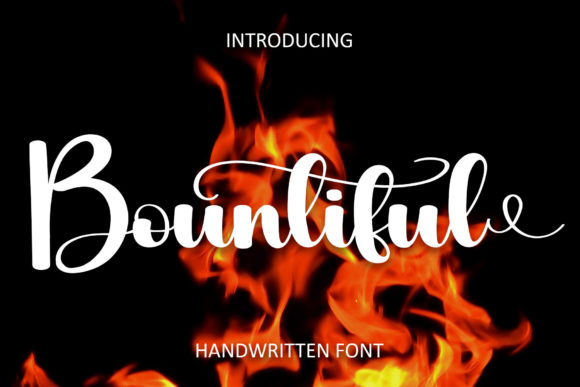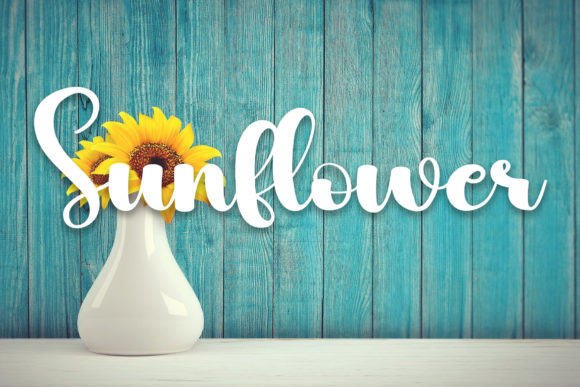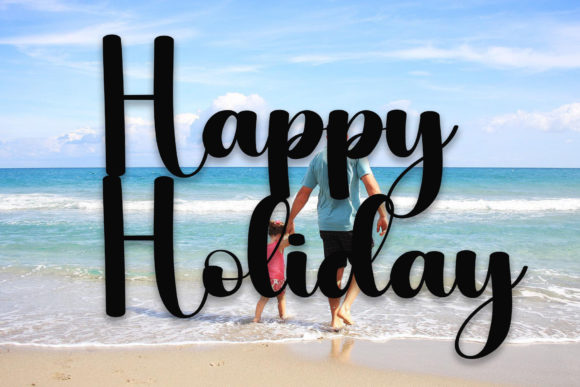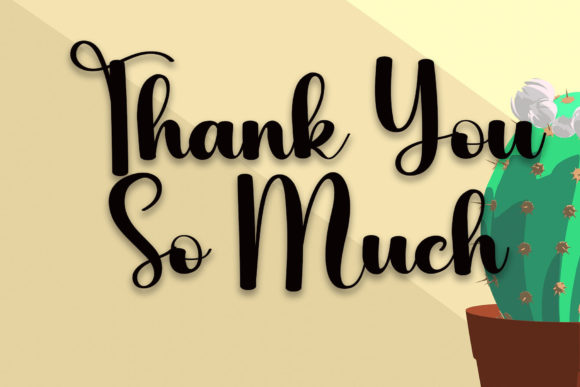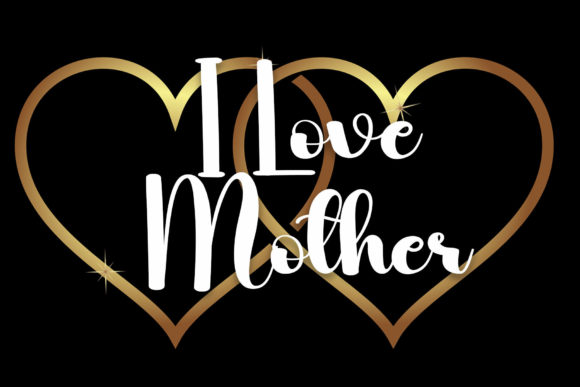
Bountiful Font
About Bountiful Font
“Bountiful,” a sweet, whimsical, flowing, and thin script font, introduces a sense of delight and luxury to your design projects. With characters gracefully dancing along the baseline, this font is meticulously crafted to infuse elegance and charm into a wide range of creative endeavors.
The sweetness of “Bountiful” is evident in its whimsical and flowing script, adding a playful charm perfect for projects that seek a touch of joy and sophistication. Whether it’s invitations, branding, or any design requiring a luxurious spark, “Bountiful” offers a captivating aesthetic.
Picture “Bountiful” gracing invitation cards, where its thin and flowing script adds a hint of romance and whimsy. The characters dance along the baseline, creating an enchanting atmosphere and setting a perfect tone for special occasions.
In branding projects, “Bountiful” becomes a luxurious choice, enhancing your visual identity with its thin and elegant script. The font’s whimsical nature contributes a playful spark, ensuring your brand stands out with memorable distinction.
The versatility of “Bountiful” extends to various design contexts, allowing seamless adaptation to your creative vision. From wedding stationery to posters and beyond, this font becomes a delightful tool for expressing your unique style with a touch of luxury.
As you incorporate “Bountiful” into your design projects, let its sweet, whimsical, and thin script inspire a sense of joy and sophistication. May the characters dancing along the baseline add a luxurious spark to your creations, turning them into visually enchanting expressions.